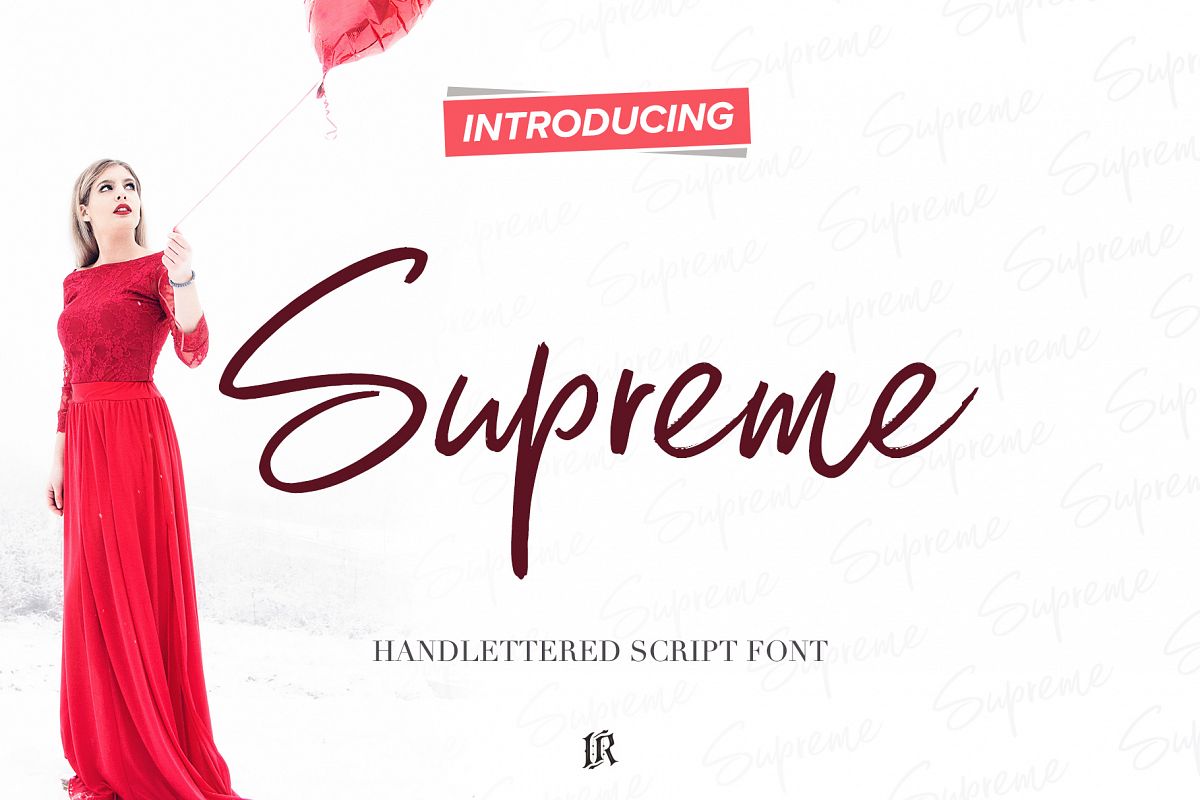
Supreme Script Font
Supreme Script Font is handlettered font with multilingual support. It's ideal for t-shirts, magazines, phone covers, social media, restaurant menus, greeting cards, invitations, weddings, headers and many more.Download folder includes